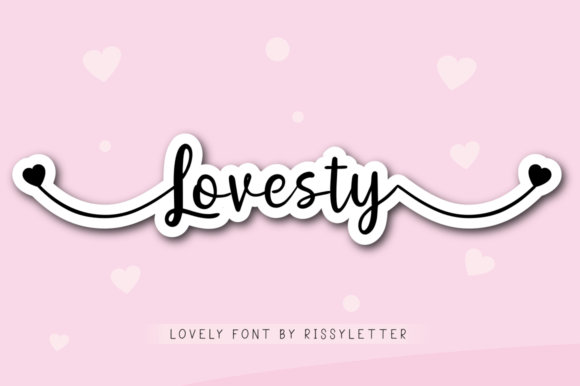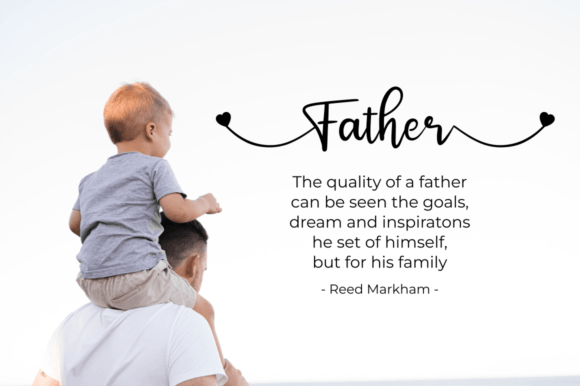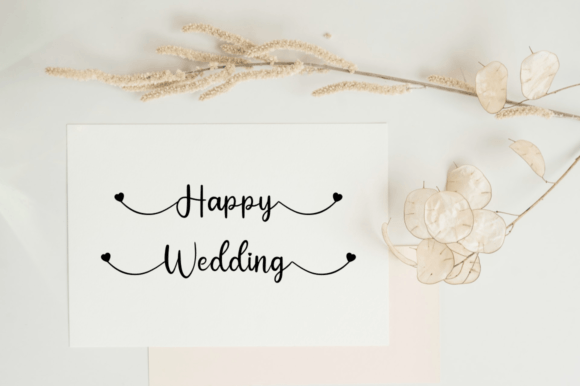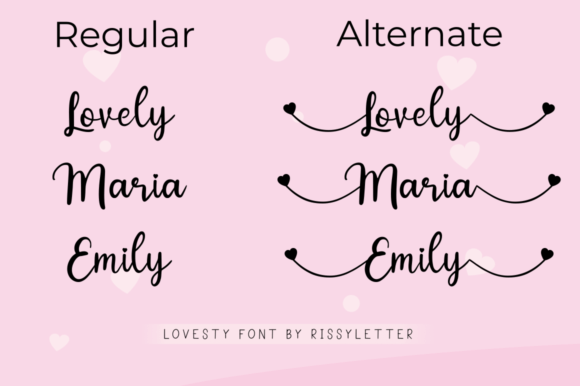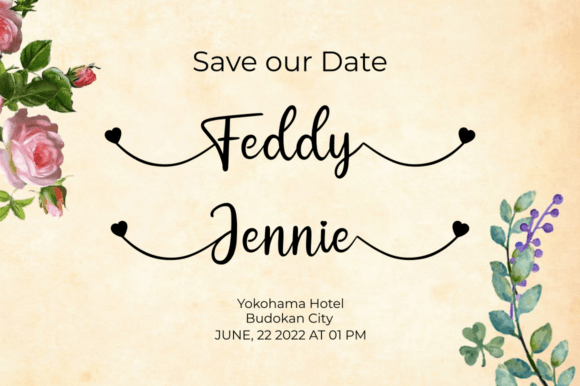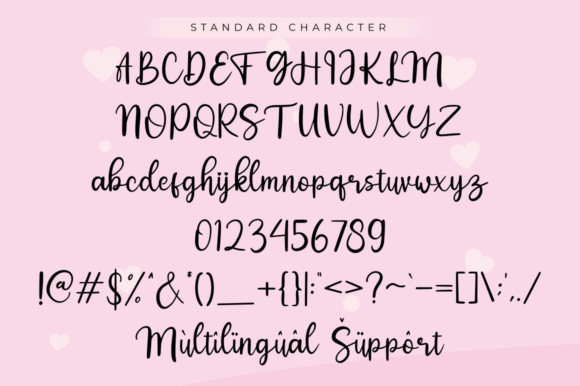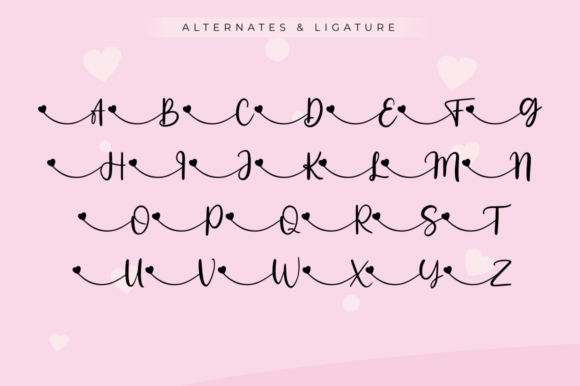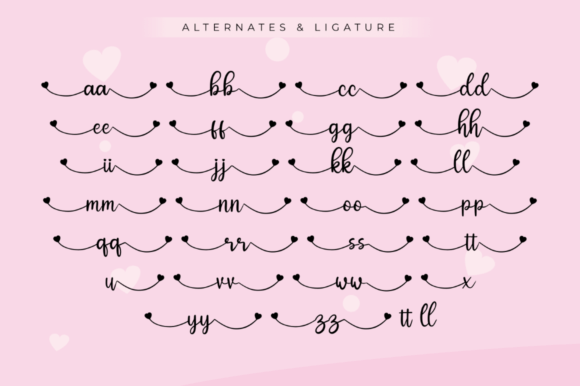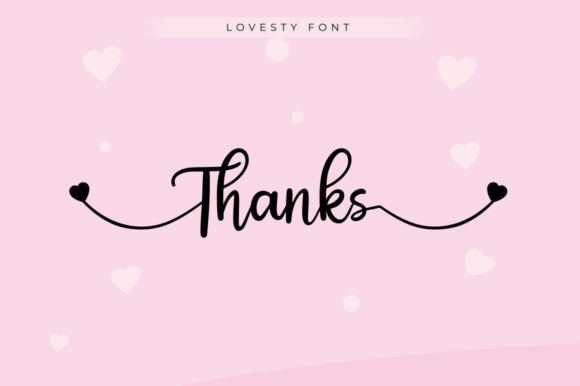
Lovesty Font
About Lovesty Font
“Lovesty” is a beautiful handwritten font with gracefully flowing characters that seamlessly connect to create an elegant and harmonious visual appeal. This font is well-suited for a wide range of design applications, making it a versatile choice for logotypes, headlines, corporate identity, brand identity, the apparel industry, posters, music, movies, games, magazines, books, comics, cartoons, YouTube, Instagram, websites, and more.
The flowing and interconnected design of “Lovesty” adds a touch of fluidity and charm to your text, making it ideal for projects where a handwritten, organic, and artistic look is desired. Whether you’re working on branding materials, promotional posters, or digital content for social media, this font enhances the overall aesthetic with its beautiful script style.
Its suitability for logotypes and corporate identity projects makes “Lovesty” a valuable asset for businesses looking to infuse a sense of creativity and personality into their visual identity. Additionally, its versatility ensures that it adapts well to various creative industries, from entertainment and gaming to publishing and online content creation.
In summary, “Lovesty” is more than just a font; it’s a design tool that brings beauty and fluidity to your creative projects. Its flowing characters and handwritten charm make it suitable for a diverse range of applications, allowing designers to enhance the visual appeal of their work across different mediums. Whether you’re creating a logo, designing a poster, or developing content for digital platforms, “Lovesty” adds a touch of elegance and creativity to elevate your design projects.